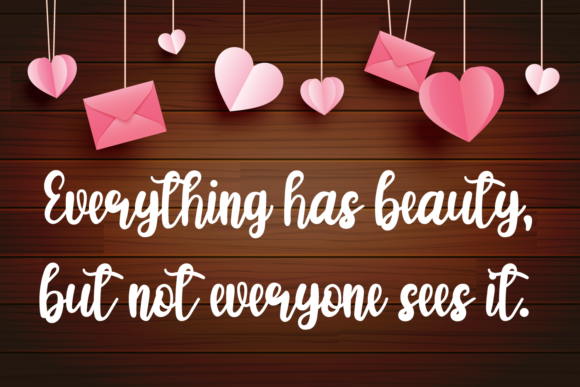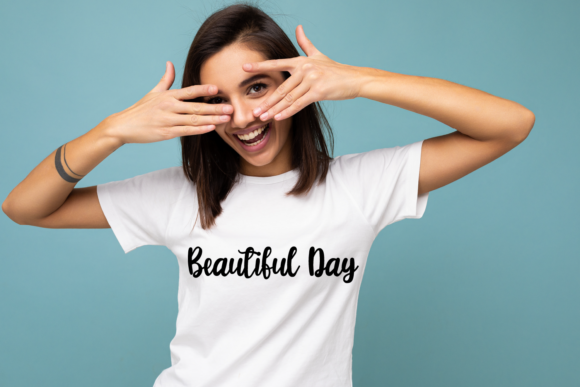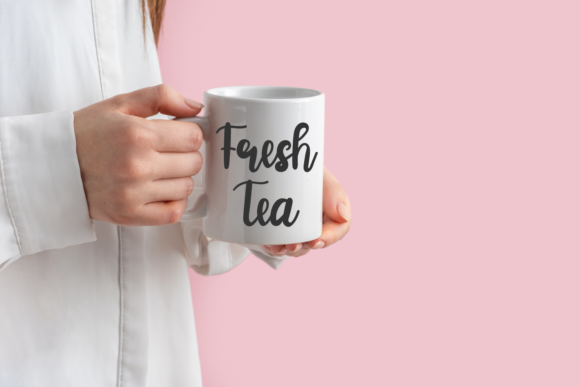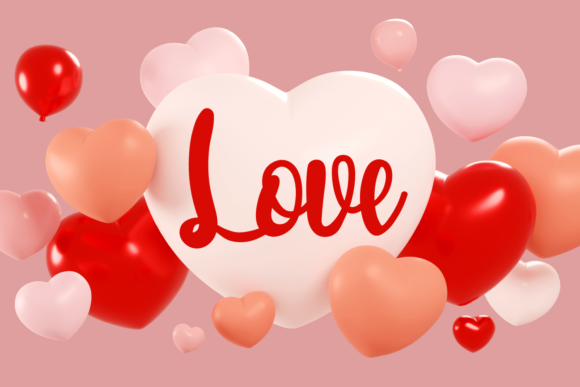
Valentine Special Font
About Valentine Special Font
Valentine Special is a playful and cute handwritten font. This gentle font will look gorgeous on a variety of design ideas. It will add a joyful and romantic touch to each of your projects!